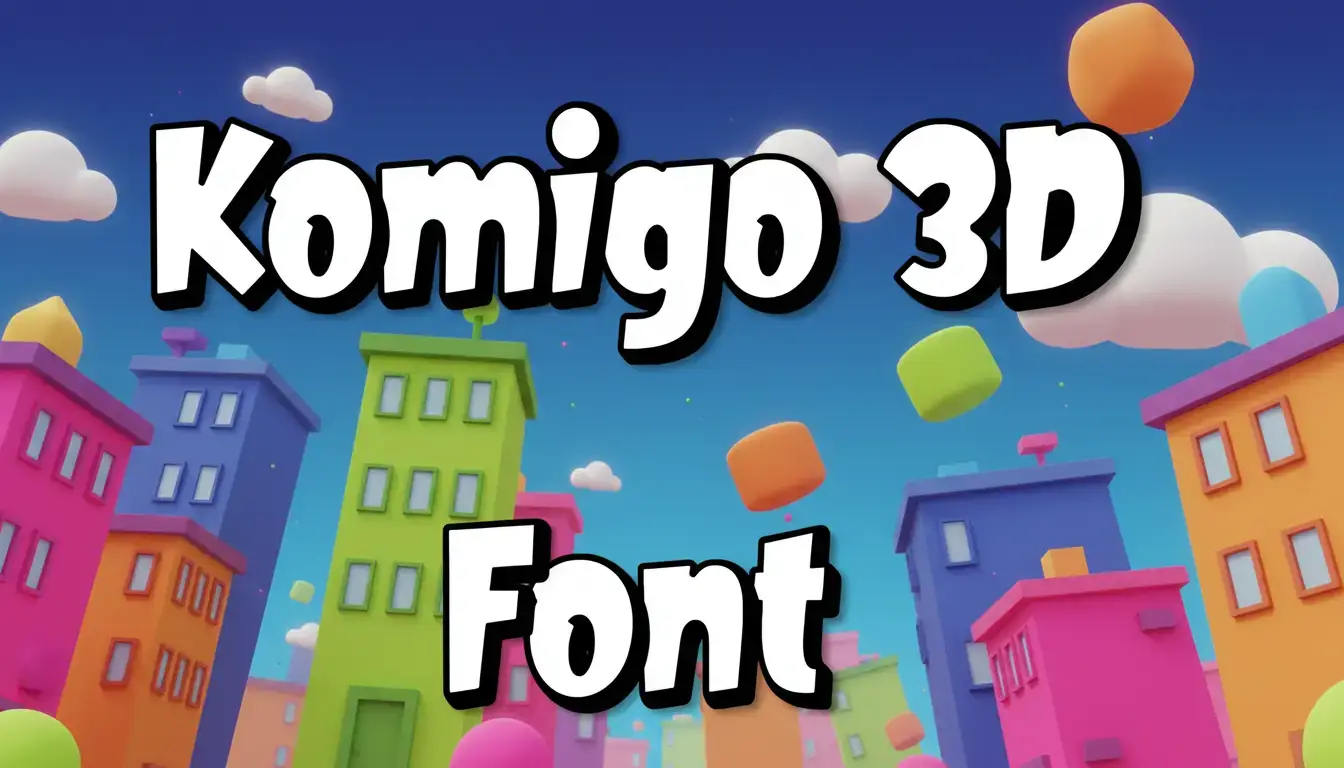
Komigo 3D Font
Komigo 3D
Komigo 3D is a fancy font created by Alit Suarnegara and released through Alit Design. Bold and full of character, it's built to stand out rather than blend in. You can download it for free and test it with your own words in the preview above.
With complete upper and lowercase letters and all ten digits, Komigo 3D is ready for real wording, not just a single headline. Everyday marks like &, !, ? and @ are there too. It has 1 accented letters, but not the full set for Spanish or French, so test any non-English words first.
Komigo 3D is a natural fit for posters, logos and eye-catching headlines. Use it for one standout word or headline and let simpler fonts handle the rest.